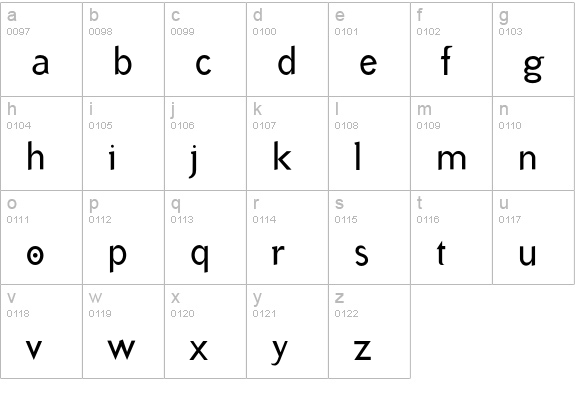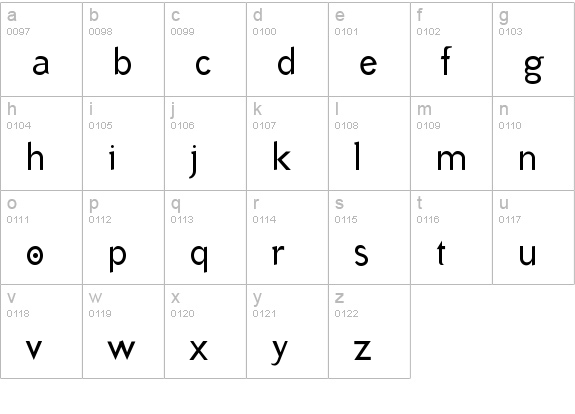
IndustrySans1 is a modern and versatile font that is perfect for any design project. With its clean lines and sleek, minimalist aesthetic, it adds a touch of sophistication to any layout. The font's wide range of weights and styles allows for endless creative possibilities, whether you're designing a logo, website, or print materials. What sets IndustrySans1 apart is its accessibility - it is available for free download at FontsMarket.com. This means that designers of all levels can enjoy the benefits of this exceptional font without any cost. Its availability on FontsMarket.com ensures that it can be easily accessed and incorporated into any project, making it a valuable resource for both professionals and beginners. IndustrySans1 is not only visually appealing but also highly legible. Its carefully crafted letterforms ensure readability across various mediums and sizes, making it suitable for both headlines and body text. The font's versatility further extends to multiple languages, allowing it to seamlessly adapt to global design needs. Whether you're working on a corporate branding project, a magazine layout, or a personal creative endeavor, IndustrySans1 is a font that delivers both style and substance. Its contemporary and elegant design, combined with its free availability on FontsMarket.com, makes it a must-have for any designer seeking to elevate their work to the next level.